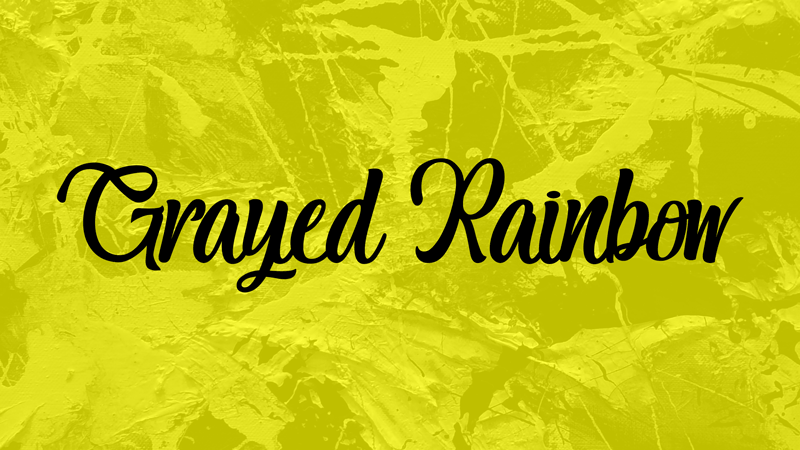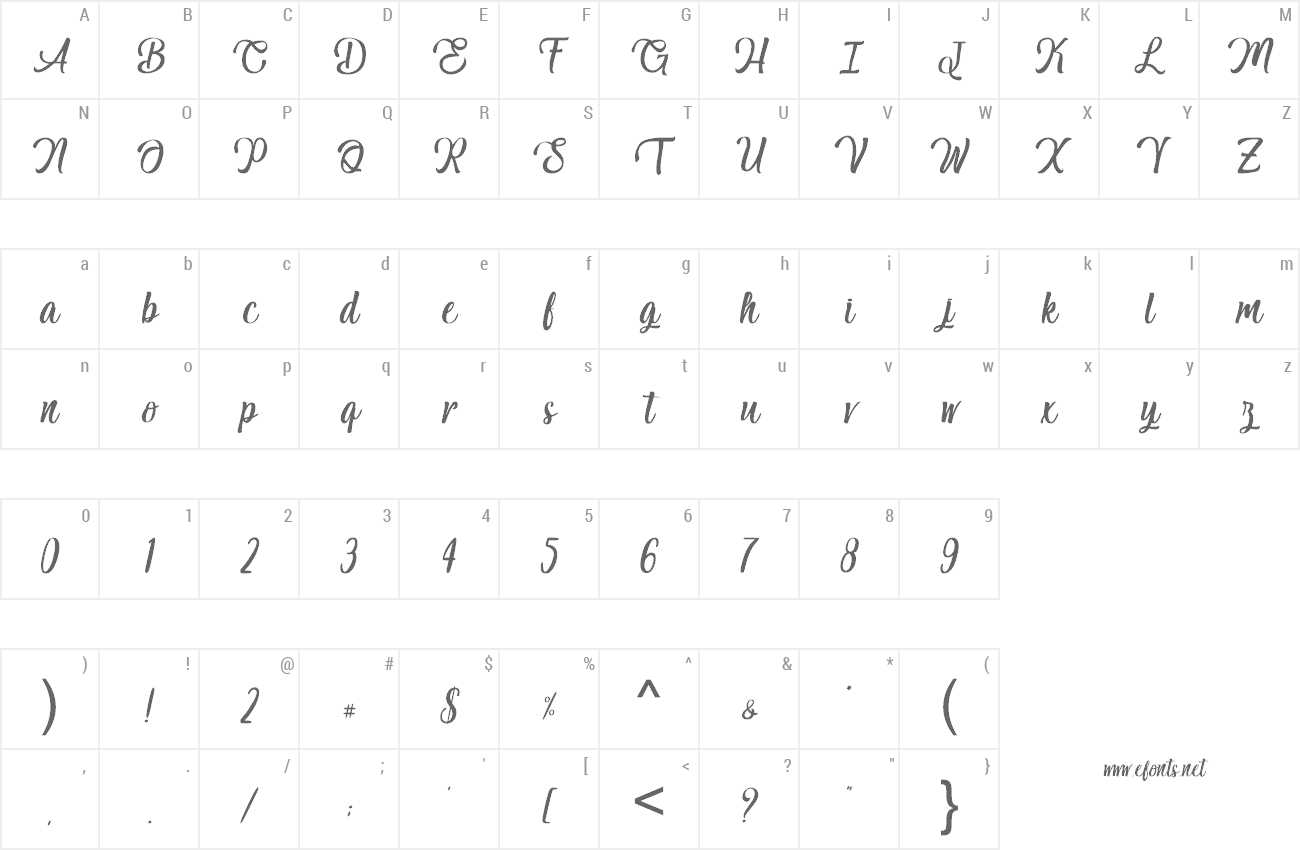
Preview and download Grayed Rainbow Font. Created by Adriana Mazurek in Script Calligraphy styles with Free for personal use license.
Grayed Rainbow is an original and fun script handwriting font designed by Adriana Mazurek. The name came from the fact that we recently adopted a dog whose body is covered with a certain gray dripping, which reminds me of a painting by one of my favourite abstract expressionist artist. Please contact me before any commercial use. My fonts for free use are allowed only in personal projects. Enjoy it! |